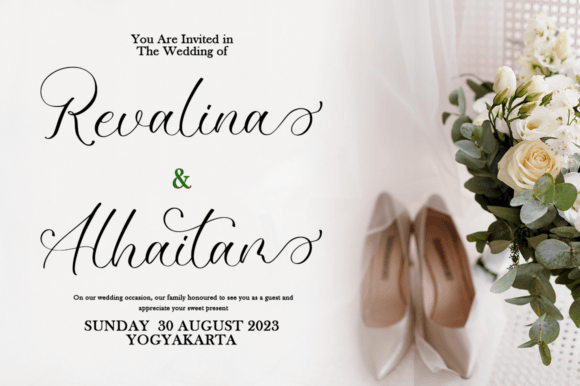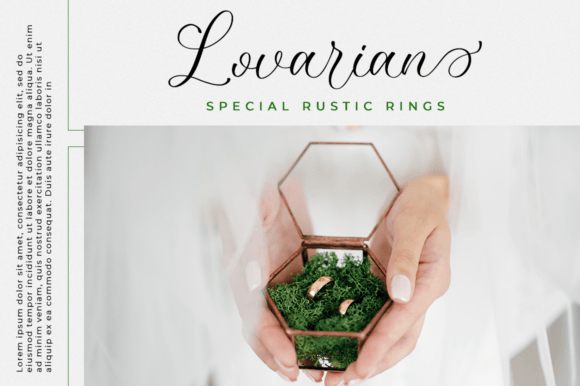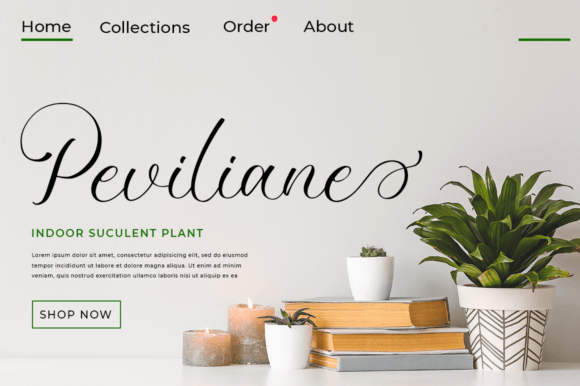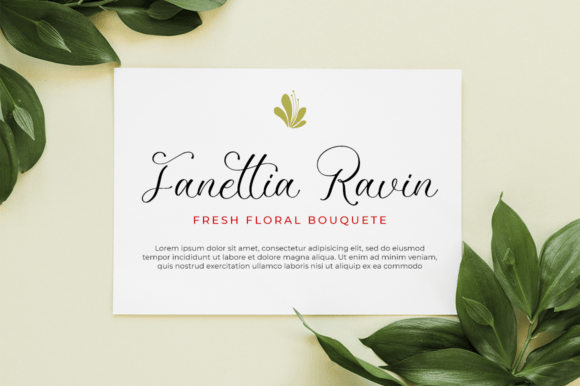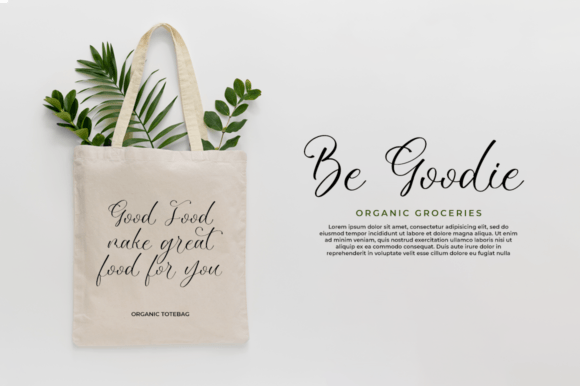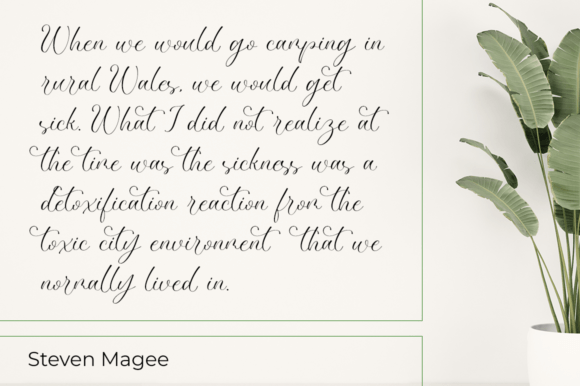
Introduction to Livenatan Font
Imagine you’re browsing through your social media feed, and you come across a beautiful wedding invitation that catches your eye. The elegant script font used in the design is not only visually stunning but also perfectly captures the essence of the special occasion. This is exactly what the Livenatan Font aims to achieve – to add a touch of sophistication and modernity to your creative projects.
As a designer, you’re always on the lookout for high-quality design resources that can elevate your work and make it stand out from the crowd. The Livenatan Font is a valuable addition to your design arsenal, offering a refined and elegant style that’s perfect for logos, branding, invitations, and more. With its transparent background and PUA encoded features, you can access all the glyphs and ligatures with ease, making it a breeze to work with.
Whether you’re working on a free download or a paid project, the Livenatan Font is a must-have resource for any designer. Its versatility and high-quality design make it an excellent choice for a wide range of creative projects, from social media posts to wedding designs. In this article, we’ll take a closer look at this beautiful script font and explore its features and benefits.
Key Features of Livenatan Font
- High-quality design resource suitable for creative projects, offering a unique and stylish touch.
- Features a transparent background, making it easy to use in a variety of design contexts.
- Includes multiple styles and weights, allowing for a high degree of customization and flexibility.
- Designed to be scalable, with a resolution of up to 300 DPI, making it ideal for use in print and digital applications.
Honest Review: Livenatan Font
I recently had the opportunity to work with the Livenatan Font, and I must say it’s been a pleasant experience. This design resource is a great addition to any creative project that requires a unique and high-quality font.
- What works well: ✨ The font’s bold and modern design makes it perfect for titles and headings, and its transparent background allows for easy integration into any background.
- What works well: ✨ The font is highly legible, making it perfect for body text and paragraphs.
However, I did encounter a few limitations while working with the Livenatan Font.
- ⚠️ The font only comes in a limited number of styles, which may not be suitable for projects that require a wide range of font options.
- ⚠️ The font may not be compatible with all design software, which could lead to compatibility issues.
Overall, I’m impressed with the Livenatan Font and would definitely recommend it to designers looking for a high-quality, free design resource for their creative projects.
Tips for Getting the Most Out of Livenatan Font
To get the most out of the Livenatan Font, experiment with different font sizes, colors, and styles. Use the font in combination with other design elements to create a unique and eye-catching visual identity.
The Livenatan Font is ideal for a wide range of creative projects, including logos, business cards, brochures, and social media graphics. Its high-quality design and transparent background feature make it a popular choice among designers and non-designers alike.
Q: Does the Livenatan Font have a transparent background?
Yes, the Livenatan Font is designed with a transparent background, making it easy to use in various design scenarios, including web design, graphic design, and digital art. The transparent background allows you to easily composite the font with other design elements, creating a seamless and professional look.